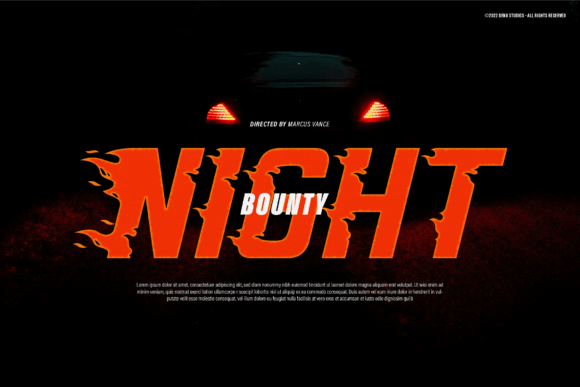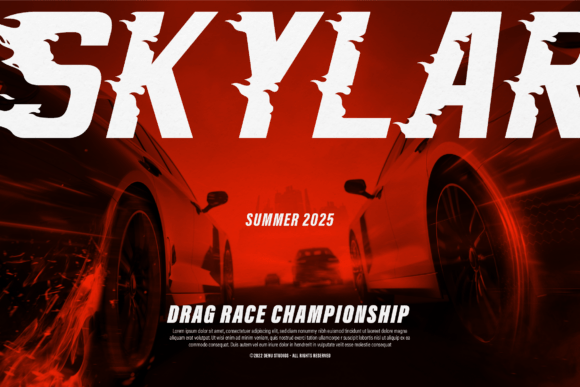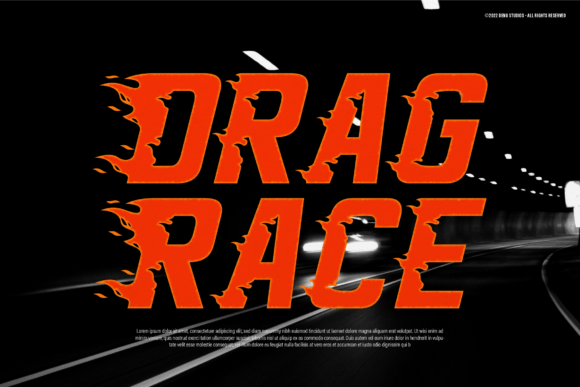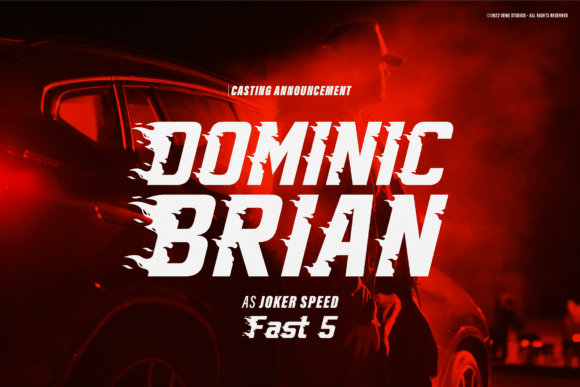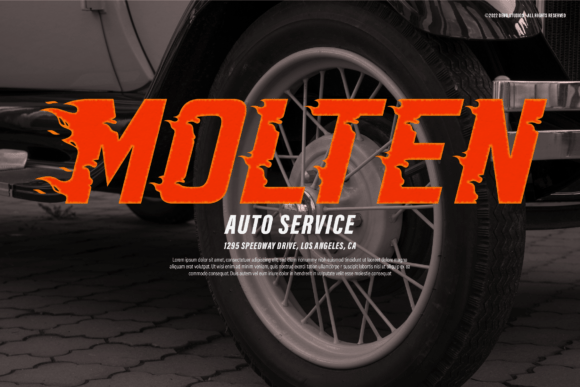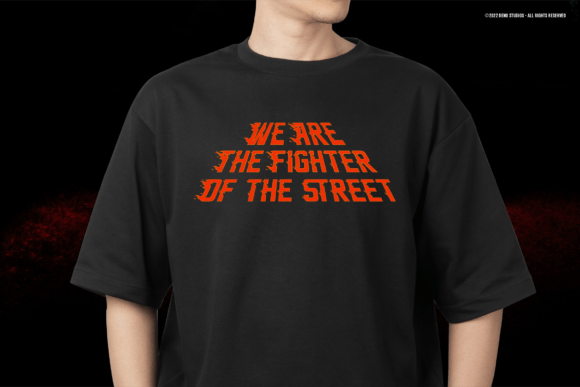
Ignite Your Designs with Heat Road Font: The Ultimate Choice for Bold and Dynamic Projects
Are you looking for a font that can add a spark to your designs and make them stand out from the crowd? Look no further than Heat Road Font, a bold and dynamic fire-themed display font that’s perfect for high-speed racing, sports branding, action-packed posters, and adrenaline-fueled designs. With its blazing flames and aggressive letterforms, this font is sure to ignite your creativity and take your projects to the next level.
What is Heat Road Font?
Heat Road Font is a carefully crafted display font that embodies the spirit of speed, energy, and excitement. Its unique design features blazing flames that seem to dance across the letters, giving it a dynamic and fiery appearance. The font’s aggressive letterforms add to its bold and edgy feel, making it perfect for designs that require a high level of intensity and drama.
Key Features of Heat Road Font
• Bold and Dynamic Design: Heat Road Font features a bold and dynamic design that’s perfect for making a statement. Its blazing flames and aggressive letterforms add a level of intensity and excitement to any project.
• Fire-Themed Aesthetic: The font’s fire-themed aesthetic makes it perfect for designs that require a high level of energy and excitement. Whether you’re creating a logo for a racing team or designing a poster for an action-packed event, Heat Road Font is sure to deliver.
• High-Speed Racing and Sports Branding: Heat Road Font is perfect for high-speed racing and sports branding projects. Its bold and dynamic design makes it ideal for creating logos, jerseys, and other branding materials that require a high level of intensity and excitement.
• Action-Packed Posters and Adrenaline-Fueled Designs: The font’s aggressive letterforms and blazing flames make it perfect for action-packed posters and adrenaline-fueled designs. Whether you’re creating a poster for a music festival or designing a logo for an extreme sports brand, Heat Road Font is sure to add a level of excitement and energy to your project.
How to Use Heat Road Font in Your Designs
Heat Road Font is easy to use and can be incorporated into a variety of design projects. Here are a few tips for using the font in your designs:
• Pair it with a Neutral Background: Heat Road Font is bold and dynamic, so it’s best to pair it with a neutral background that won’t compete with the font. A simple black or white background can help the font stand out and make it more readable.
• Use it for Headlines and Titles: Heat Road Font is perfect for headlines and titles. Its bold and dynamic design makes it easy to read and adds a level of excitement and energy to any project.
• Experiment with Different Colors: Heat Road Font looks great in a variety of colors, but it’s especially striking in bold and bright colors like red, orange, and yellow. Experiment with different colors to find the one that works best for your project.
Benefits of Using Heat Road Font
There are many benefits to using Heat Road Font in your designs. Here are a few:
• Adds Intensity and Excitement: Heat Road Font adds a level of intensity and excitement to any project. Its bold and dynamic design makes it perfect for designs that require a high level of energy and drama.
• Perfect for High-Speed Racing and Sports Branding: The font’s fire-themed aesthetic and aggressive letterforms make it perfect for high-speed racing and sports branding projects.
• Easy to Read: Despite its bold and dynamic design, Heat Road Font is easy to read. Its clear and simple letterforms make it perfect for headlines and titles.
Font Name Heat Road Font
Heat Road Font is a bold and dynamic fire-themed display font that’s perfect for high-speed racing, sports branding, action-packed posters, and adrenaline-fueled designs. With its blazing flames and aggressive letterforms, this font adds intensity and excitement to any project. Whether you’re a designer, crafter, or simply someone who loves bold and dynamic fonts, Heat Road Font is sure to ignite your creativity and take your projects to the next level.